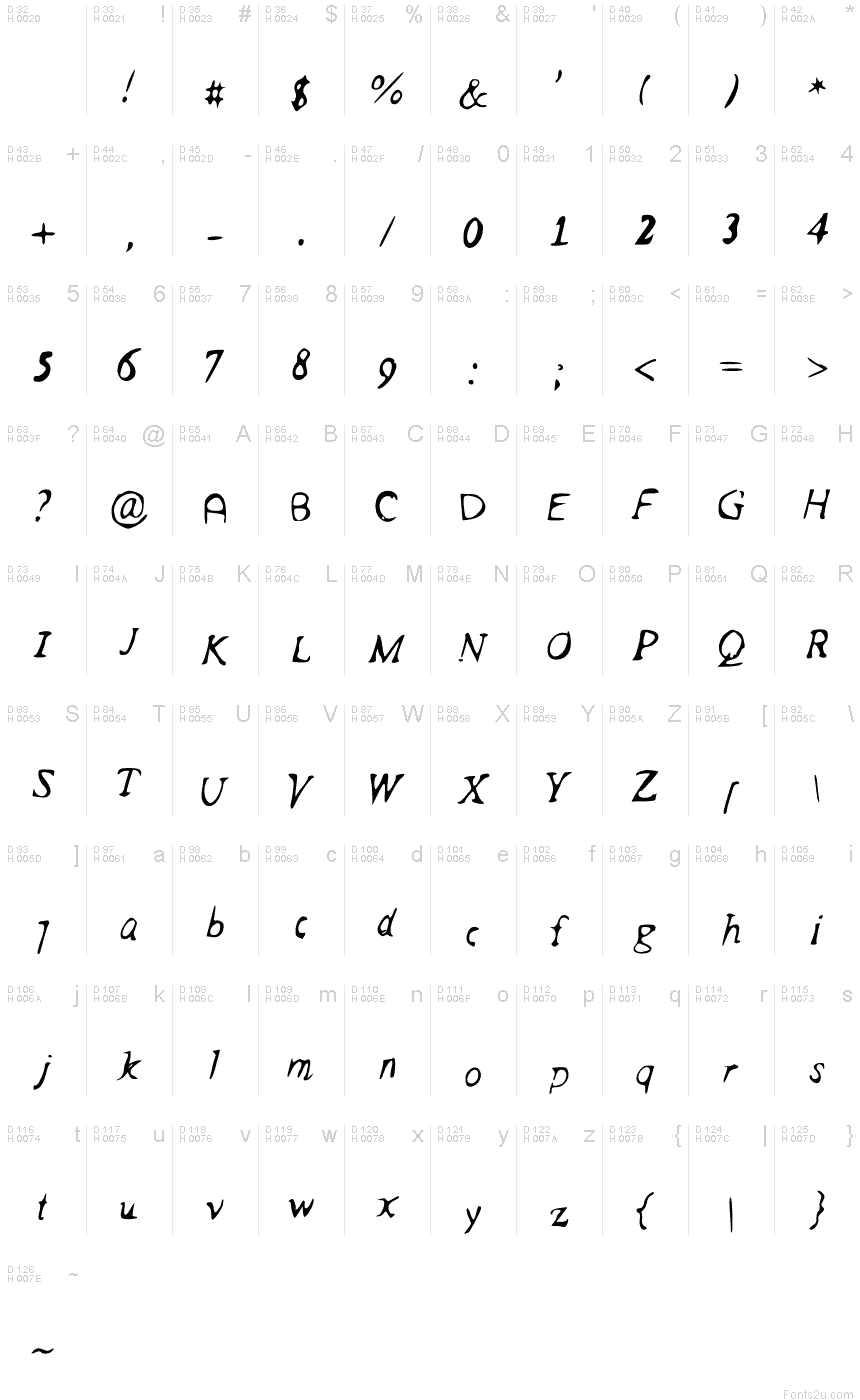
pancho
This is a font to be used for a scary title if you just want to be fun with it it'll be a perfect font for you, its something a lot different and unique from everyone else.